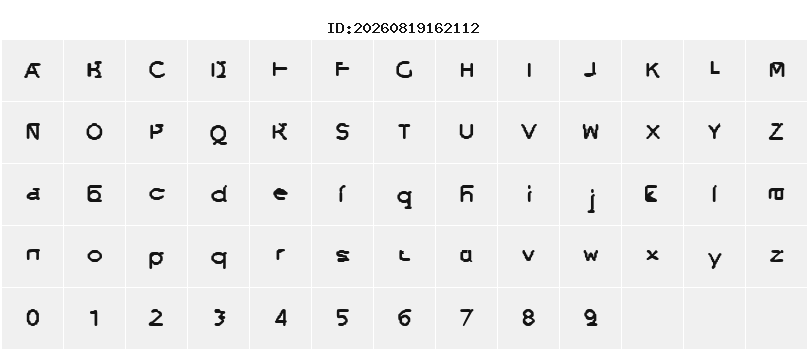
• Font Name: Signal OR
• Full Font Name: Signal OR
About Signal OR.ttf
Signal OR.ttf is a modern, elegant sans-serif font designed for ultimate readability and visual harmony. Perfect for branding, headlines, web design, and print materials.